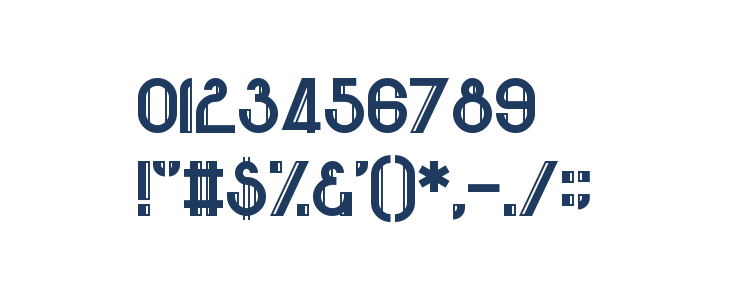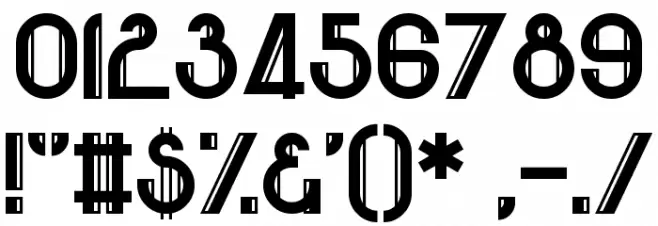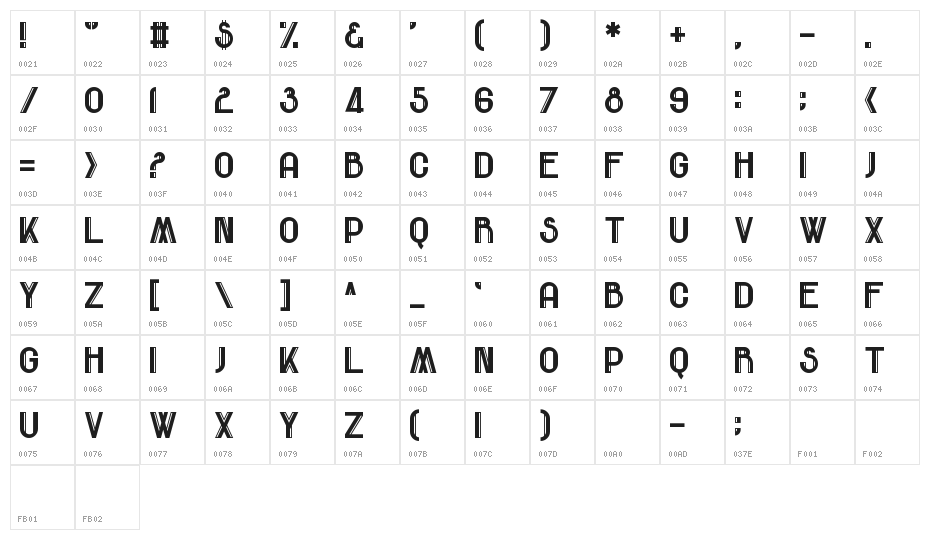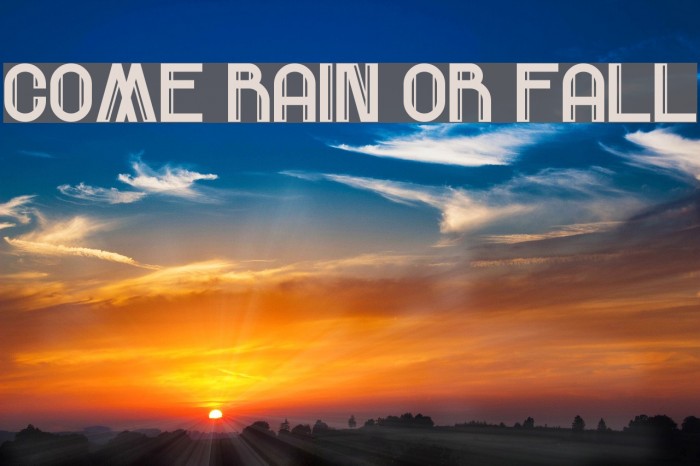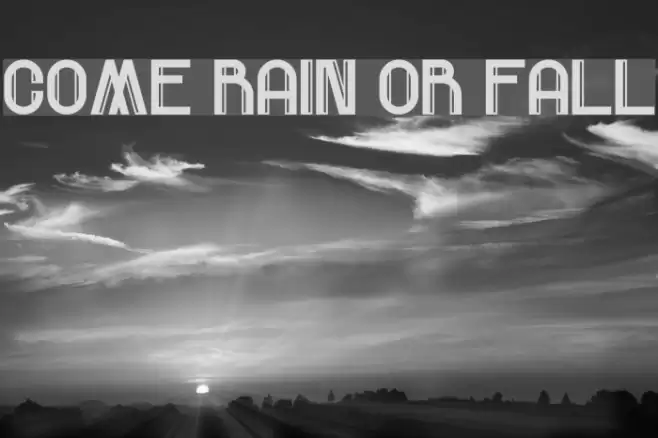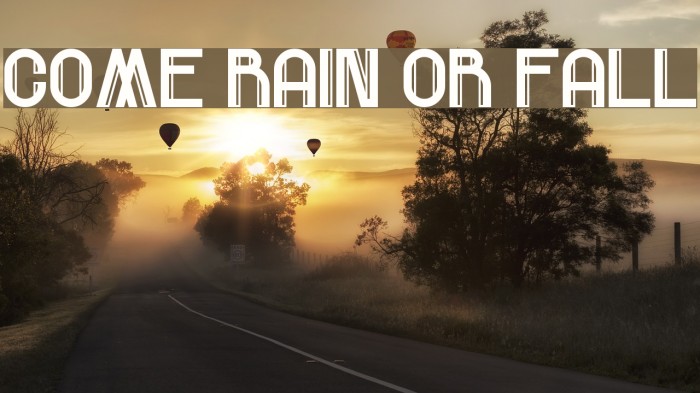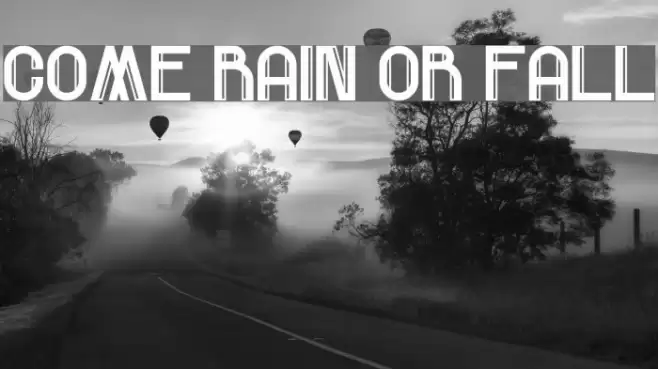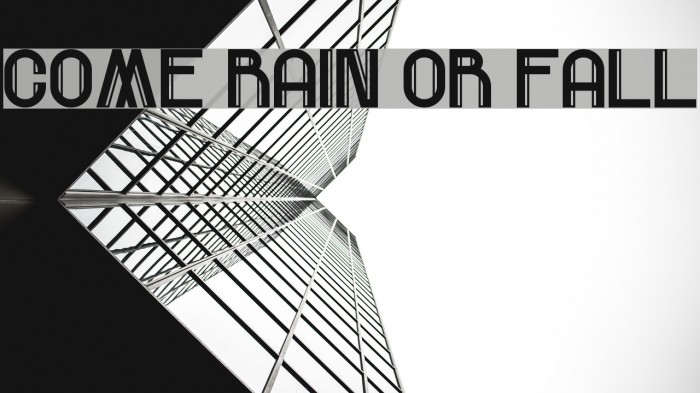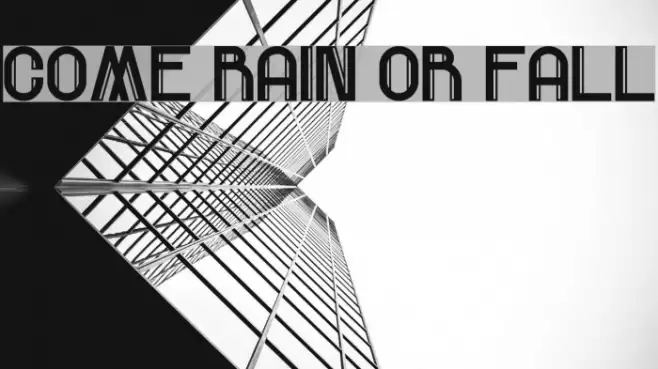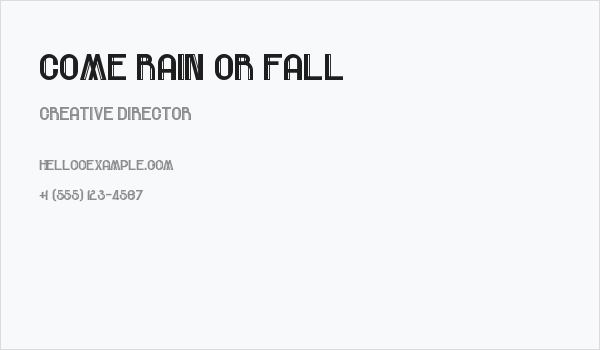
Come Rain Or Fall Font
Come Rain Or Fall Description
This font features a bold and striking design with a geometric and futuristic aesthetic. The characters are constructed with a combination of thick and thin lines, creating a high contrast that enhances readability while maintaining a unique style. The uppercase letters exhibit a strong presence with angular cuts and sharp edges, while the lowercase letters maintain a consistent design language. The numerals are equally bold, ensuring they stand out in any context. Special characters are designed to complement the overall aesthetic, making this font versatile for various applications.